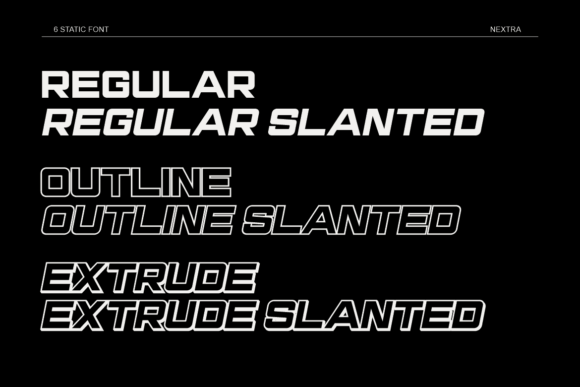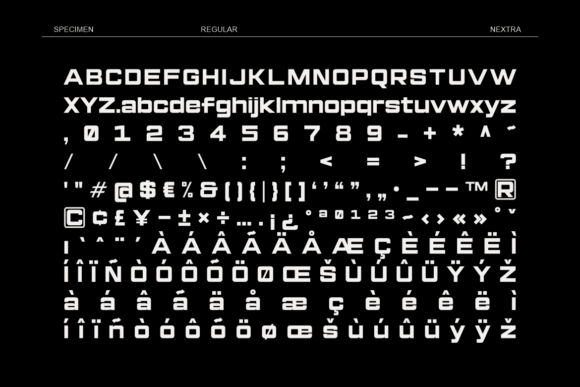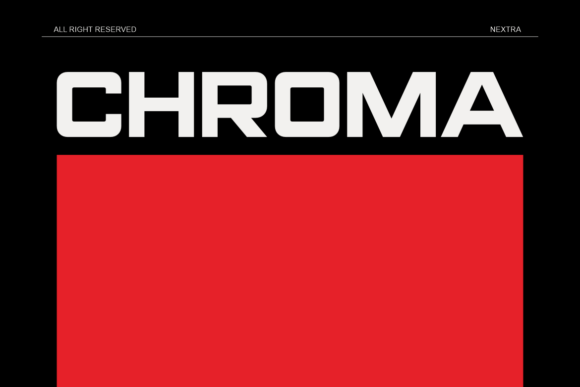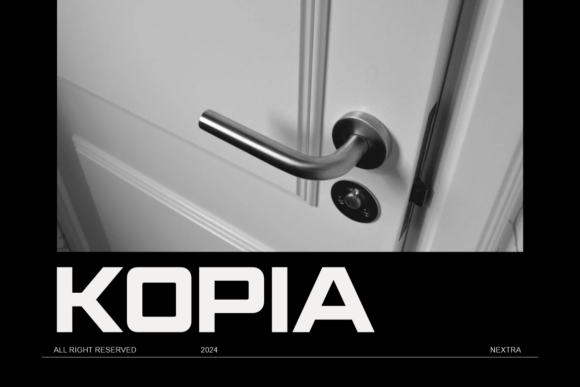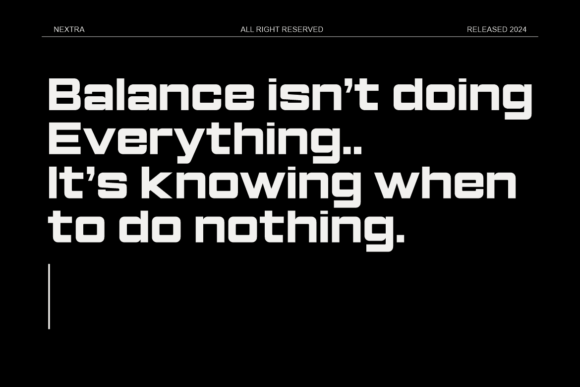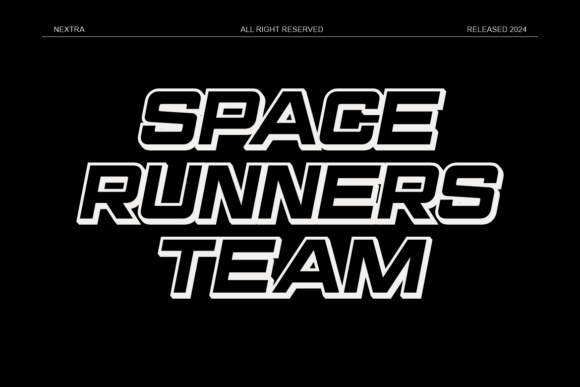
Introduction to Nextra Font
Nextra is perfect sans serif font for sports and technology projects should embody a sense of strength, agility, and modernity.
With clean lines and a sleek design, this font exudes a contemporary feel that aligns perfectly with the fast-paced world of sports and the cutting-edge field of technology Its versatility allows it to be used for various applications, from sports team logos and tech company branding to sleek interface designs and dynamic marketing materials.
Key Features of Nextra Font
Why Choose Nextra Font?